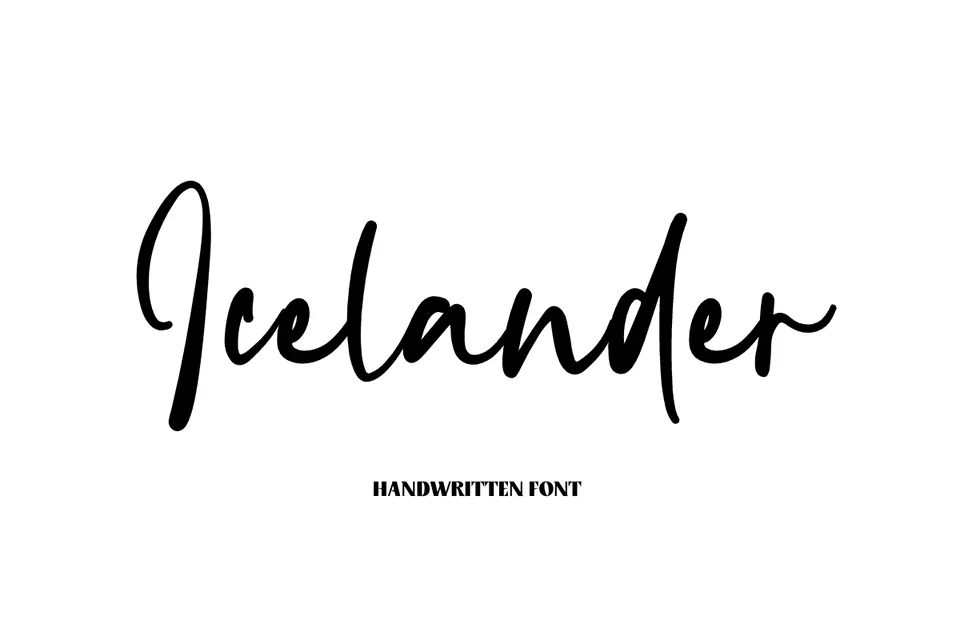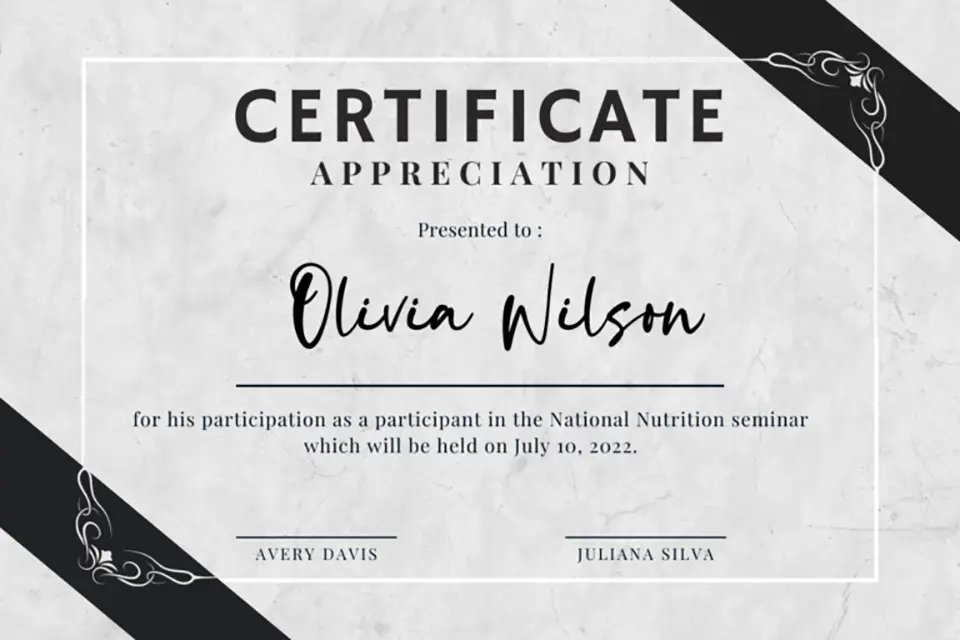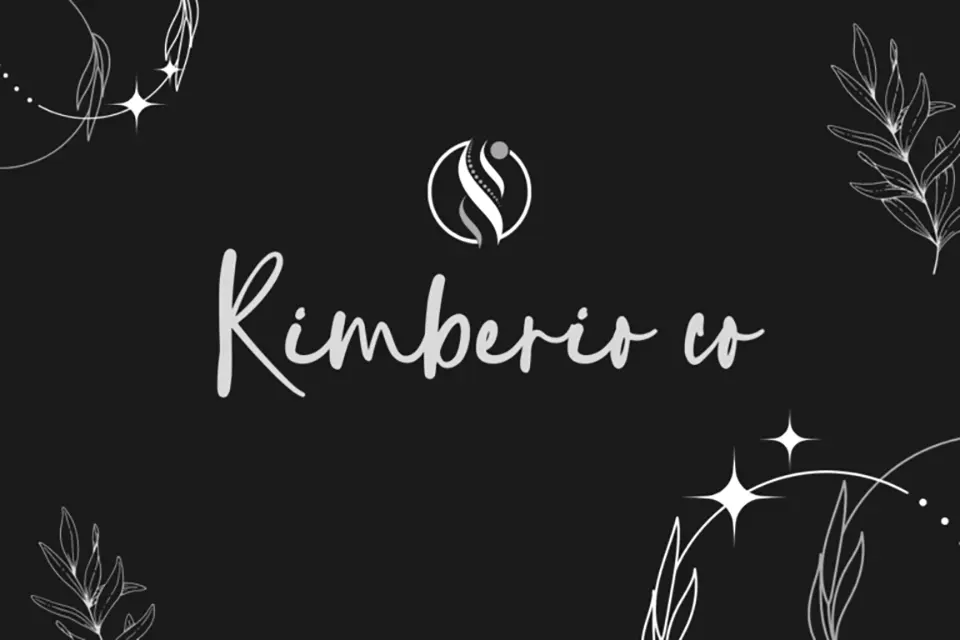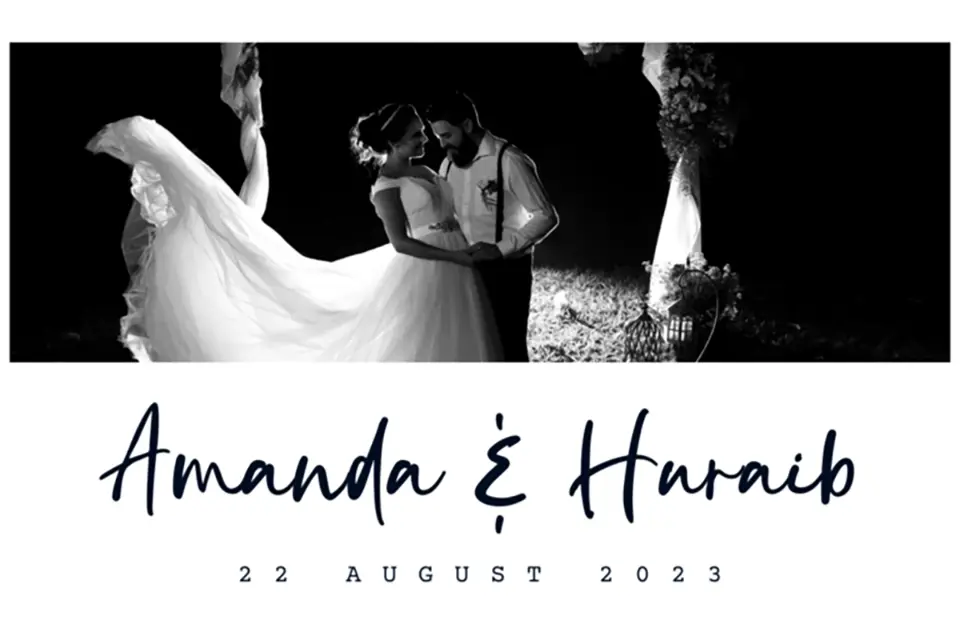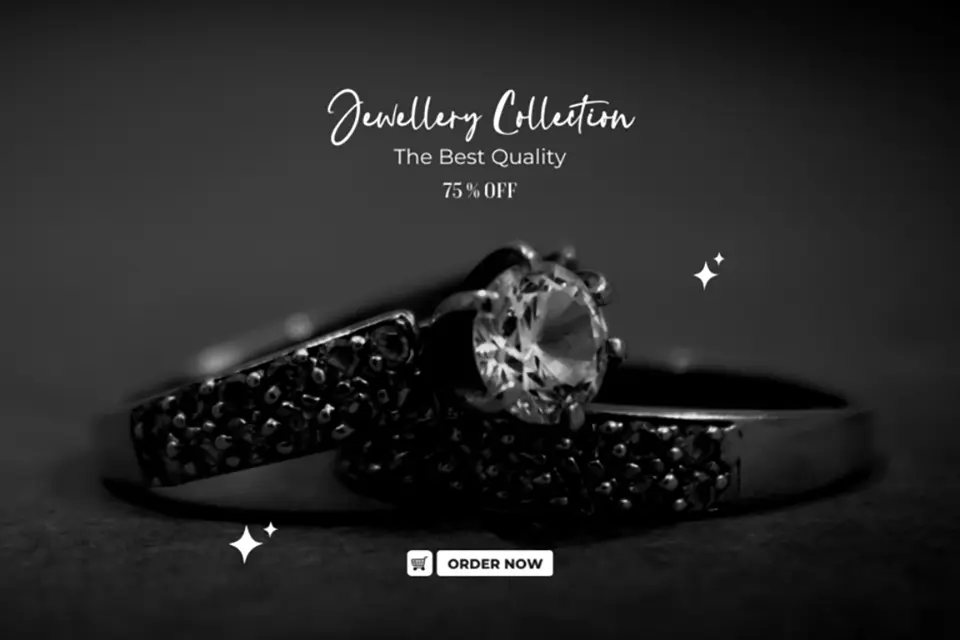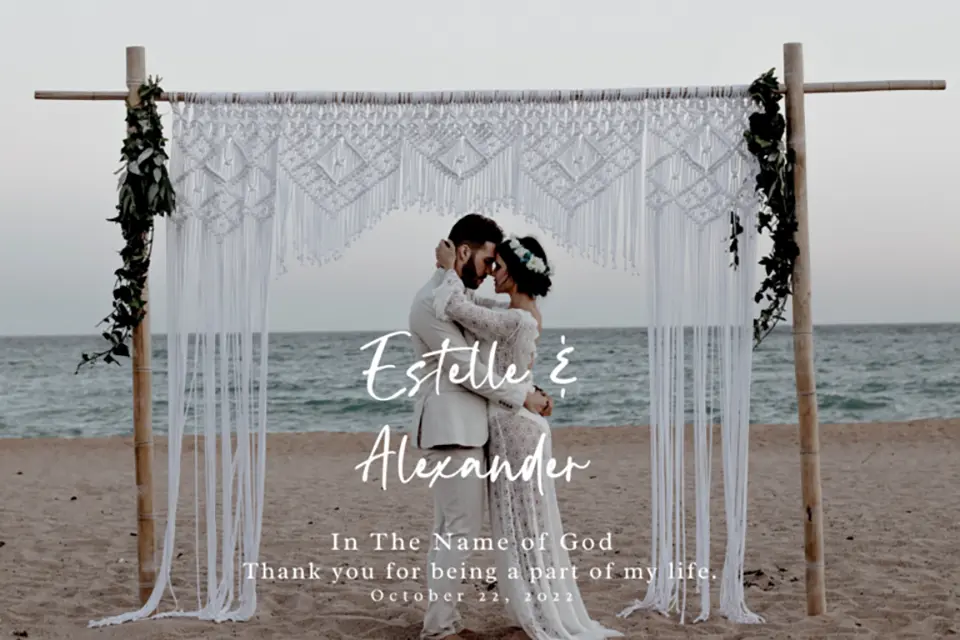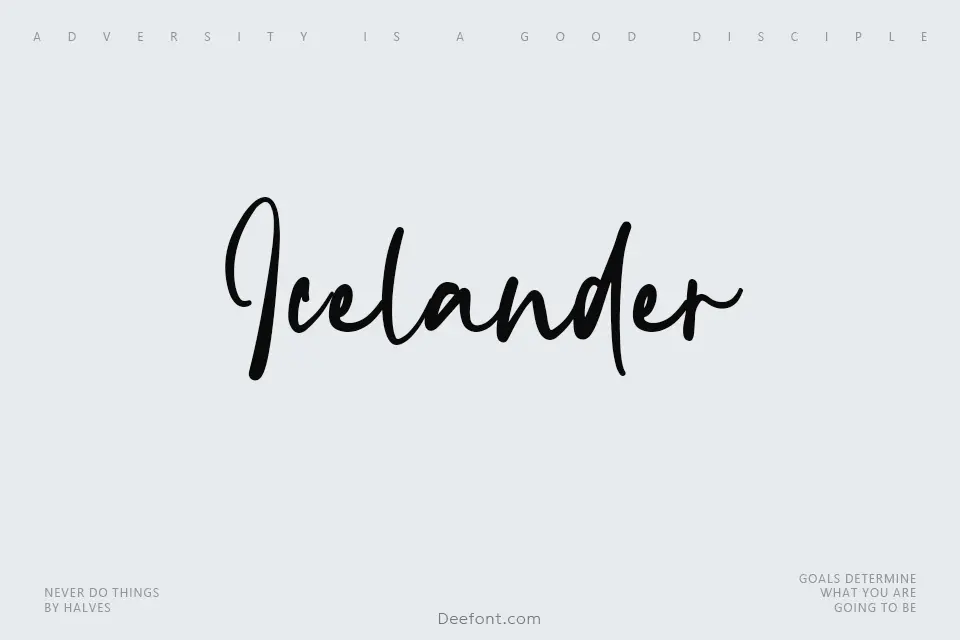
Icelander Font
Icelander Font is a modern handwritten typeface designed with a casual and elegant style, perfect for diverse creative projects. Its smooth, flowing strokes give it a lively and dynamic appearance, making it ideal for personal use in invitations, labels, or signature designs. The font captures a sense of sophistication while maintaining approachability, blending seamlessly into various design contexts. Whether used for branding, social media graphics, or artistic typography, Icelander Font adds a touch of personality and charm. Its versatility allows it to adapt effortlessly to both digital and print mediums, ensuring a polished and professional finish for your projects.